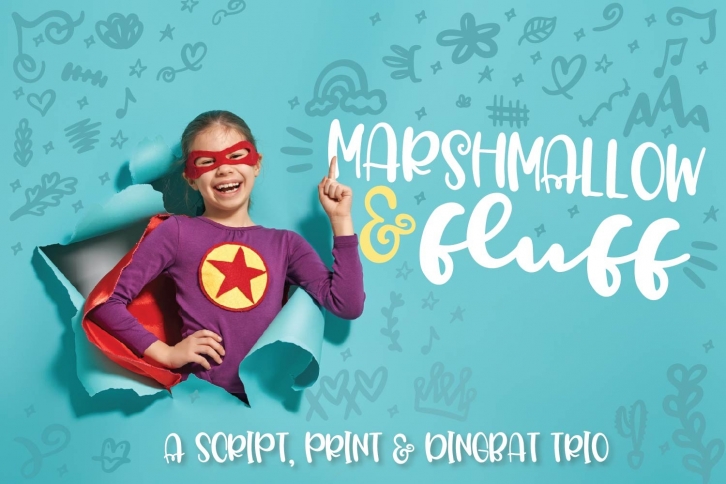
Marshmallow Fluff is a beautiful font that was designed by Justina Tracy. It's a great choice for designers and creatives who need such a font. It was released on February 6, 2019 and the file size is 15.82 MB. Marshmallow Fluff may give a more youthful, expressive and casual look to your project. It is a very beautiful, refined, elegant, and high-quality font.